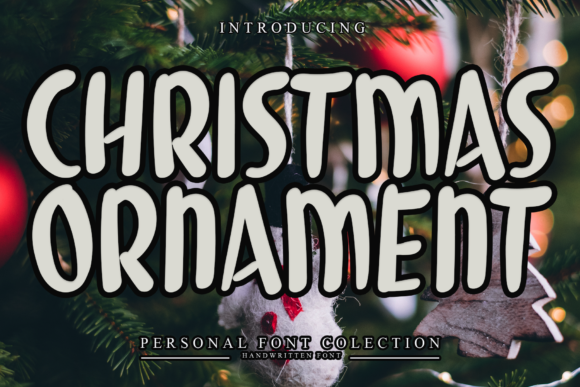
Unwrapping the Magic of Christmas Design
It’s that time of the year when creativity knows no bounds and the festive spirit is in the air. You’re rummaging through your craft supplies, surrounded by glitter, glue, and colorful paper, trying to come up with the perfect DIY gift or invitation for a holiday party. And then, it hits you – the perfect font to capture the essence of Christmas: a bold, eye-catching display font that screams joy and festivity.
Enter the Christmas Ornament Font, a stunning display font designed to add a touch of magic to your holiday designs. Whether you’re creating wedding invitations, thank-you cards, or business cards, this font is sure to make your designs stand out. Its bold, playful style is perfect for designers looking to add a festive twist to their work, and its versatility makes it a valuable addition to any design arsenal.
Key Features of Christmas Ornament Font
- Unique Characteristic: The font features a festive, hand-drawn design with ornaments and patterns reminiscent of traditional Christmas decorations.
- Special Characters: Includes a variety of special characters, including ornaments, patterns, and festive symbols, to add a touch of Christmas magic to designs.
Designer Review: Christmas Ornament Font
Overall, I think the Christmas Ornament Font is a fun and festive choice for holiday projects. ✨ The font’s playful, whimsical style is perfect for adding a touch of cheer to cards, posters, and other designs.
One of the things that works well about this font is its versatility. ✨ It can be used for a variety of projects, from simple greetings to more elaborate designs. The font is also highly customizable, with options for color and size that make it easy to tailor to your needs.
However, there are a few limitations to consider. ⚠️ For one, the font may not be the best choice for professional or formal projects, as its playful style may not be taken seriously. Additionally, some of the ornament characters may be a bit tricky to use, requiring a bit of experimentation to get the look just right.
- Playful, whimsical style perfect for holiday projects
- Highly customizable with options for color and size
- Versatile and can be used for a variety of projects
- May not be suitable for professional or formal projects
- Some ornament characters may require experimentation to use effectively
Christmas Ornament Font: A Practical Application Guide
3. Customize the font size, color, and style to match your design.
4. Use the font to create festive headings, titles, or quotes.
Some popular use cases for the Christmas Ornament Font include:
Creating festive holiday cards, invitations, or decorations.
Designing holiday-themed social media graphics or ads.
Creating custom holiday gift tags or labels.
Remember to experiment with different font sizes, colors, and styles to get the most out of this unique and festive font.
Alternatives to Christmas Ornament Font for Designers
Great Vibes is a modern, elegant script font that can be used for a variety of purposes, including invitations, signage, and holiday cards. It’s perfect for designers who want to add a touch of sophistication and whimsy to their designs. Compared to Christmas Ornament Font, Great Vibes is more versatile and less focused on a specific holiday theme.